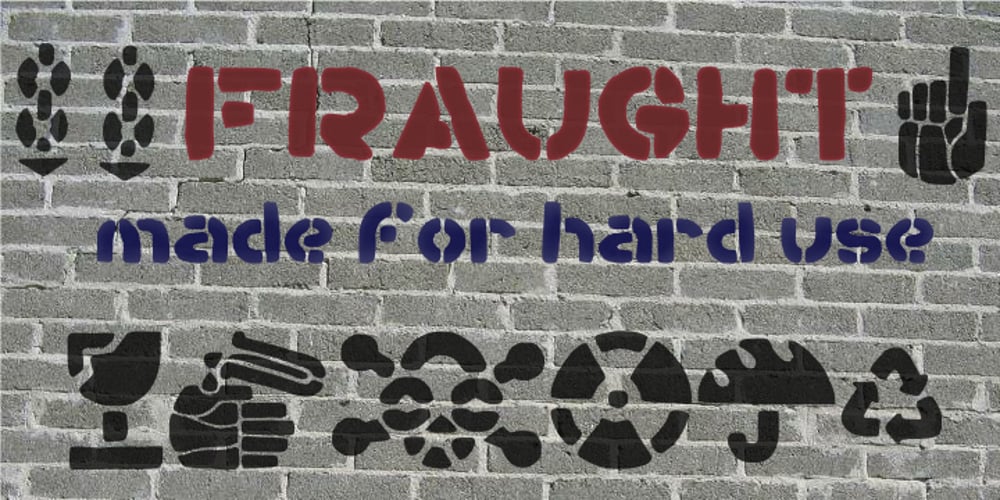
Fraught Font Family was designed by Heikki Morgan Hämäläinen and published by Morganismi. Fraught contains 2 styles and family package options. Fraught is a rough tough stencil font for hard use. It supports most European languages.